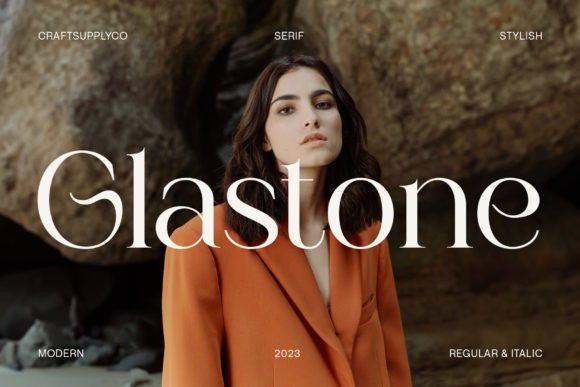
Introducing Glastone Font, the epitome of timeless elegance and contemporary sophistication. Crafted by craftsupplyco, this modern serif typeface is designed to captivate and inspire. With its graceful lines and feminine touch, Glastone effortlessly blends beauty and class, making it the best font for classic typing.
Are you tired of the same old fonts that fail to make an impact? Look no further, as Glastone is here to elevate your design projects to new heights. Whether you're creating a greeting card, packaging, brand identity, or a captivating poster, this font is guaranteed to make your work stand out from the crowd.
Glastone's versatility knows no bounds. Its modern aesthetic adds a touch of sophistication to any creative endeavor, while its timeless charm ensures that your designs remain relevant and trendy. With Glastone, you have the power to transform your ideas into visual masterpieces that leave a lasting impression.
What sets Glastone apart is its ability to effortlessly evoke emotion. The elegant curves and refined details of each letter create a sense of warmth and familiarity, instantly connecting with your audience on a deeper level. Whether you're aiming for a classic or contemporary vibe, Glastone adapts seamlessly to your vision, allowing you to convey the exact message you intend.
Unleash your creativity and explore the endless possibilities that Glastone offers. Its extensive character set, including ligatures and alternate glyphs, allows you to customize your typography and add a unique flair to your designs. Stand out from the crowd and let your imagination run wild with this captivating font.
But that's not all – Glastone is not just a font, it's an experience. As you delve into its elegant curves and intricate details, you'll find yourself immersed in a world of beauty and inspiration. Each stroke tells a story, each letter whispers a secret, and together they create a harmonious symphony that will leave you in awe.
Don't settle for mediocrity when you can have excellence. Choose Glastone Font and let your creativity soar. Turn heads, evoke emotions, and leave a lasting impression with this font that embodies the perfect balance between elegance and modernity.